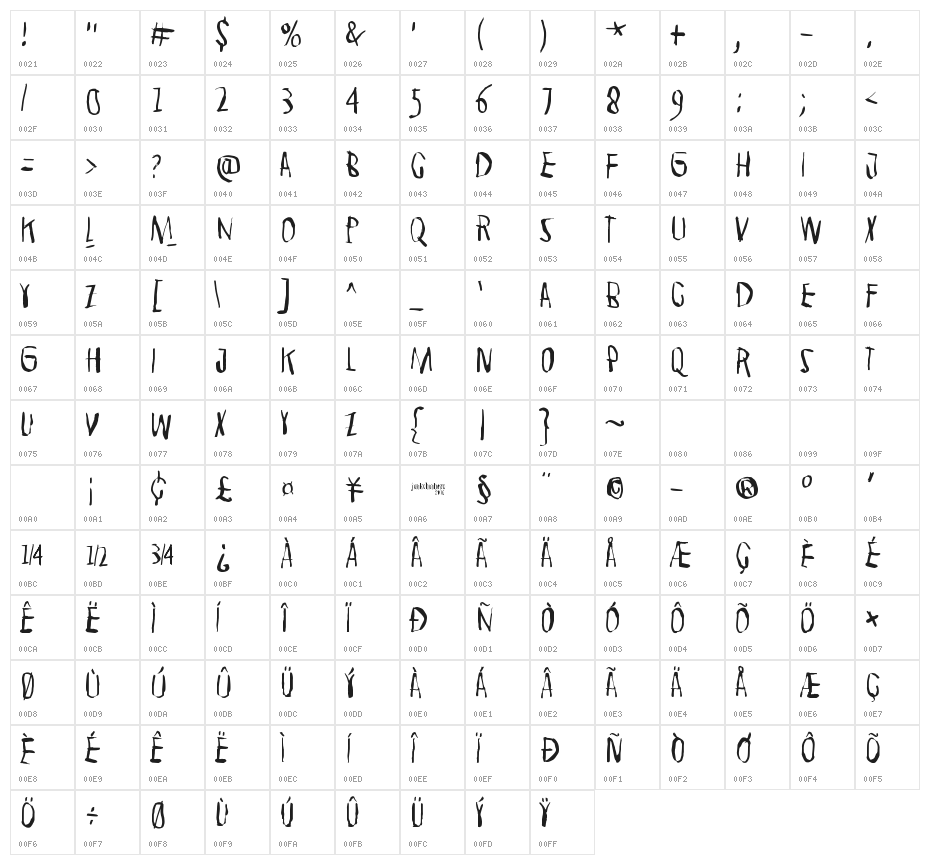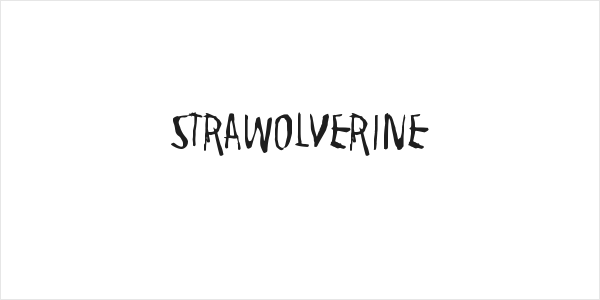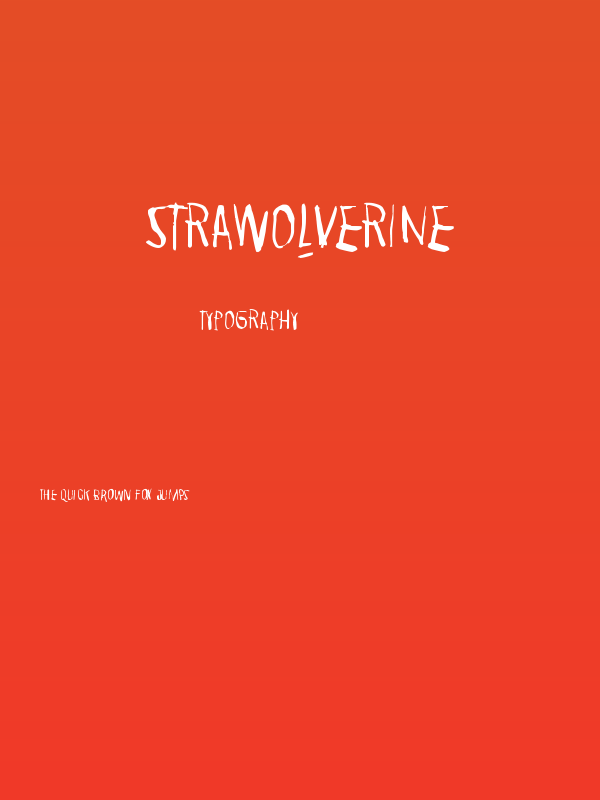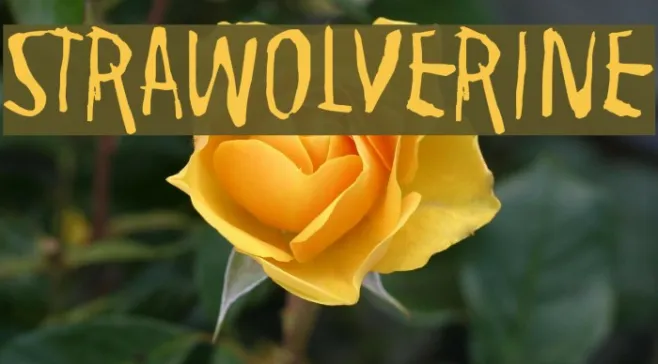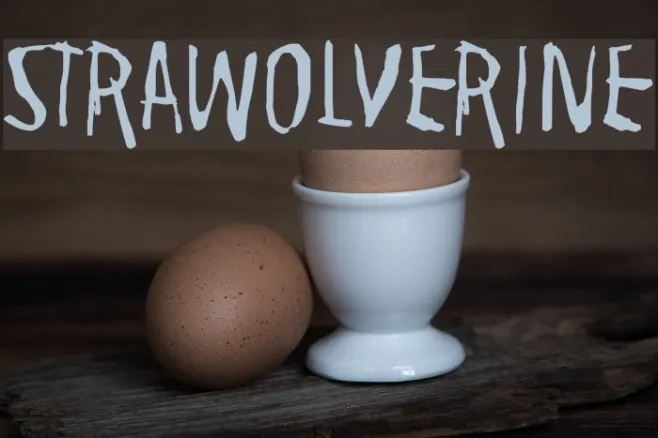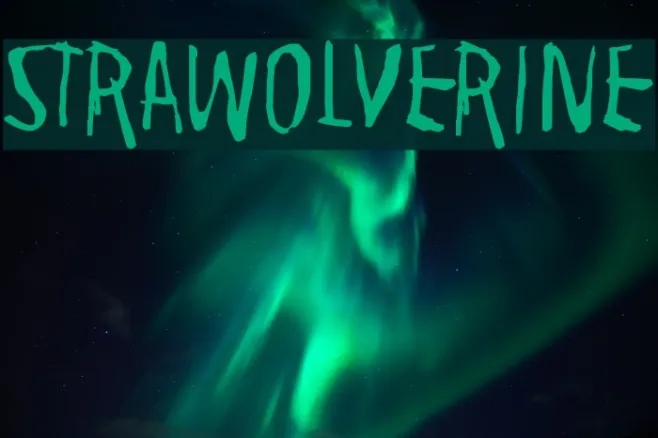
Strawolverine Font
Strawolverine Description
This font exhibits a raw, hand-drawn aesthetic with an energetic and dynamic feel. The characters are irregular and slightly distorted, giving it a unique and artistic appearance. The strokes are bold and uneven, with a brush-like texture that adds to its organic and expressive style. The uppercase and lowercase letters maintain a consistent style, while the numbers and special characters complement the overall design. This font is perfect for projects that require a bold statement and a touch of creativity.
| Proposed Projects | Ideal for artistic posters, album covers, creative branding, and expressive social media graphics. |